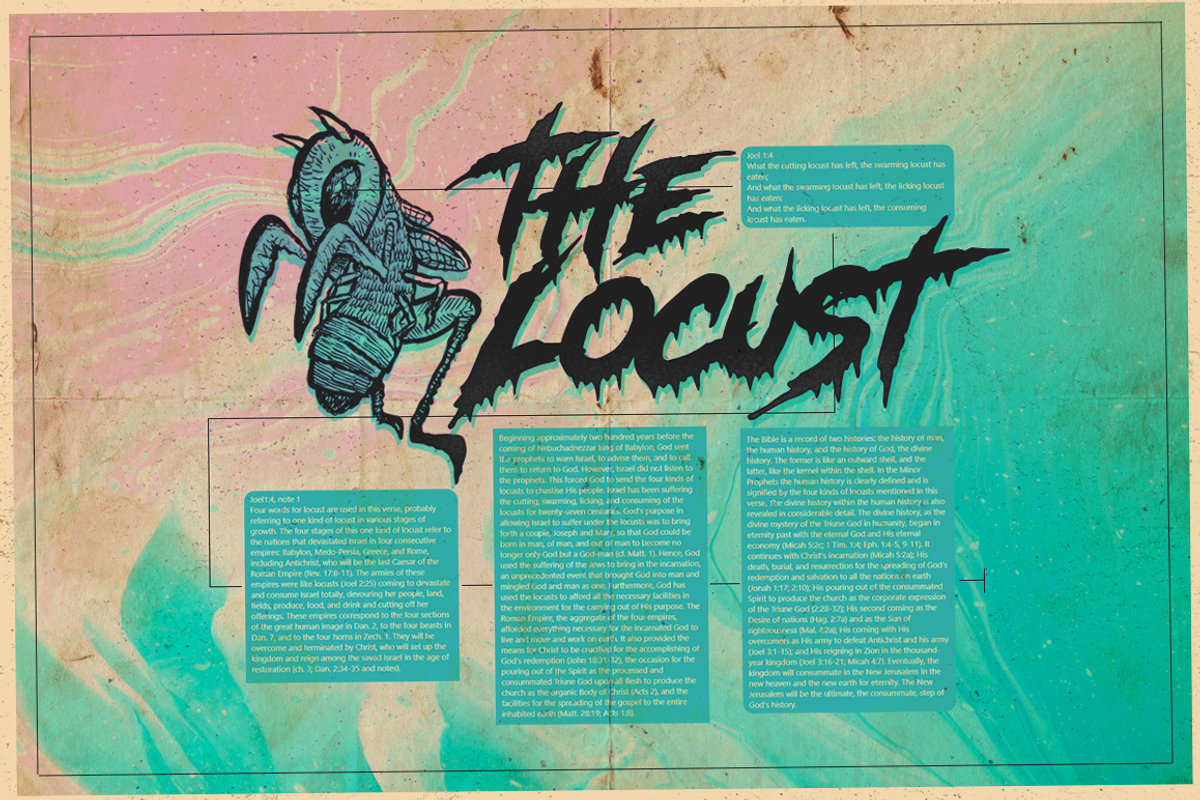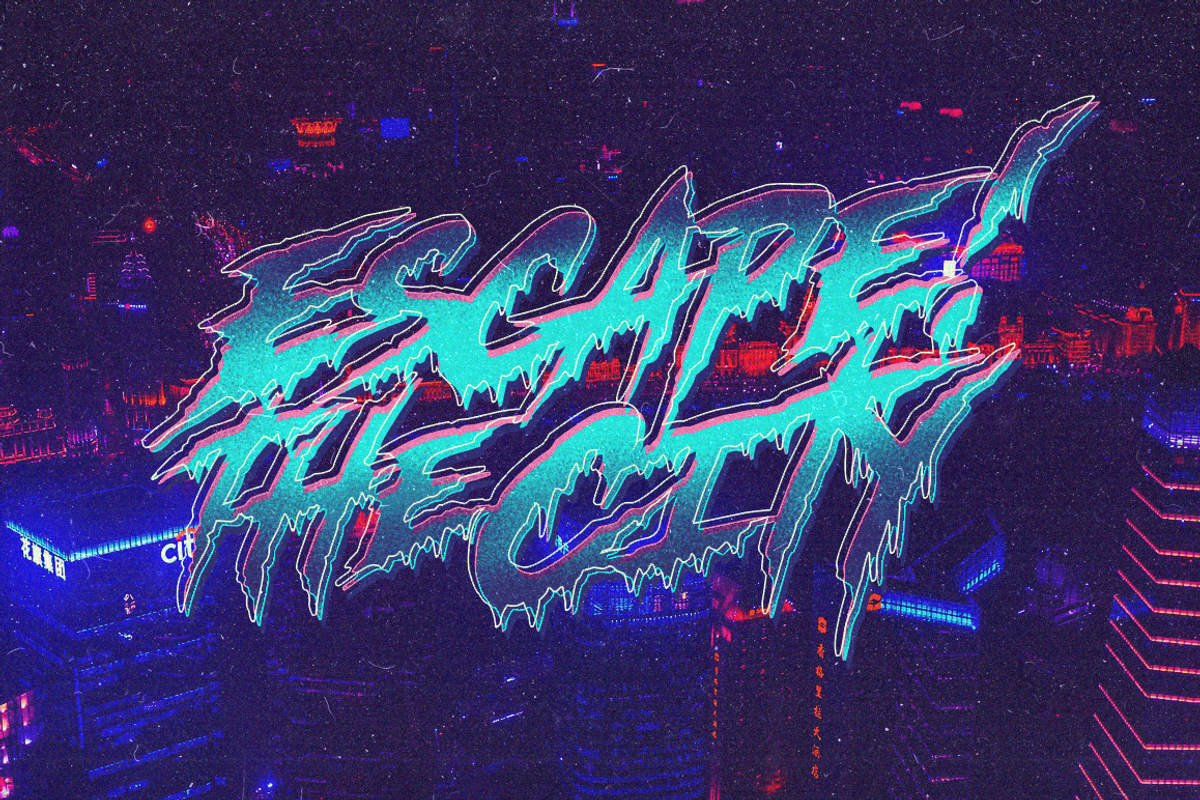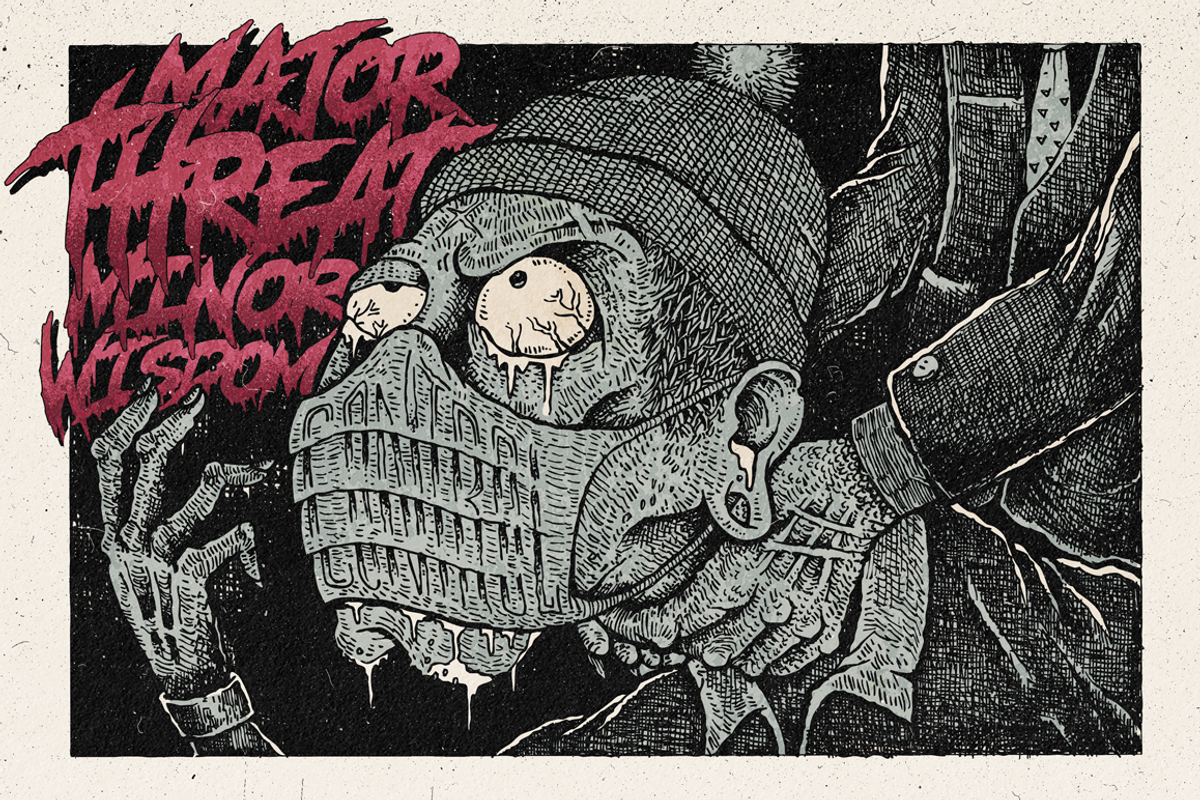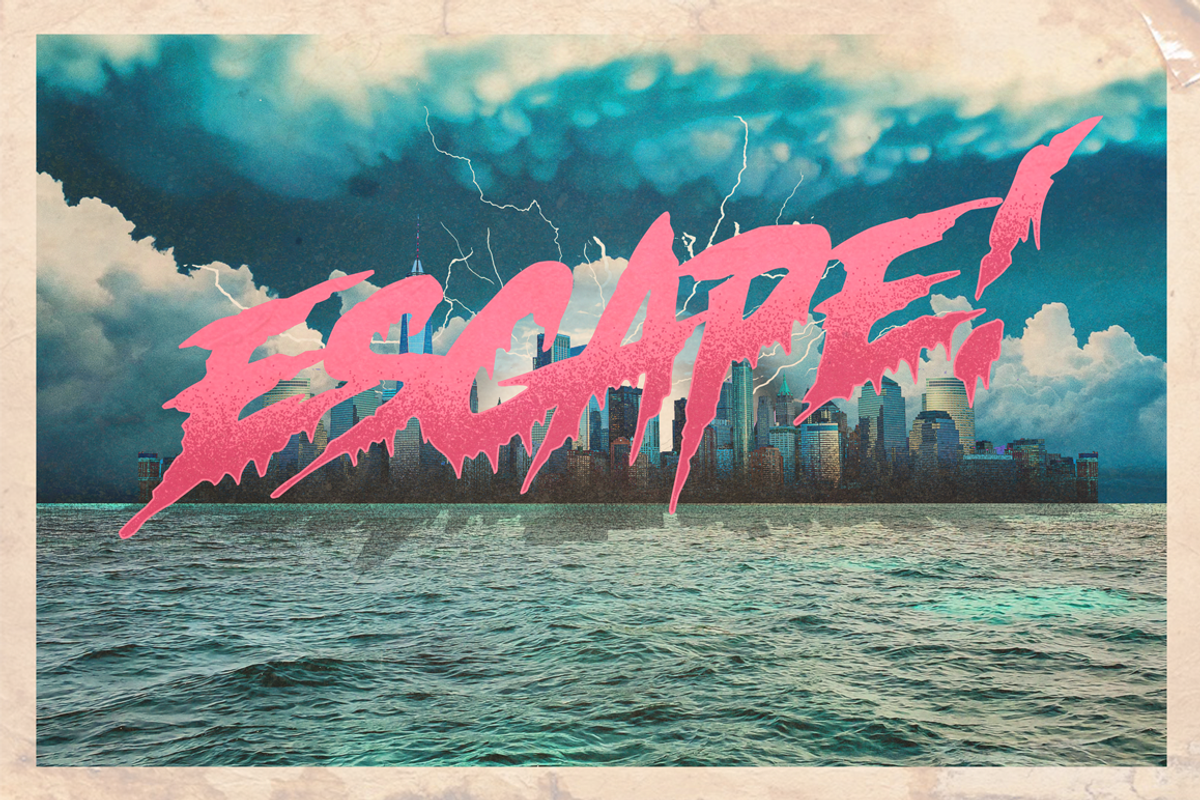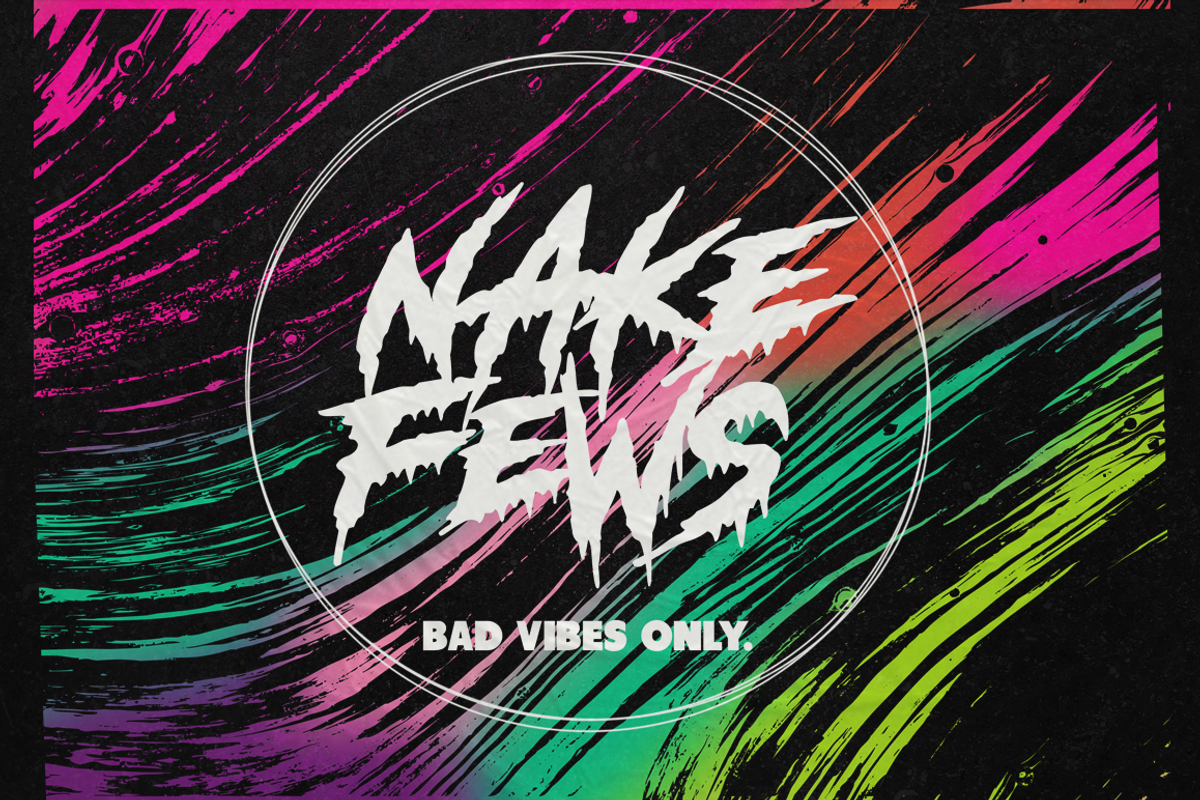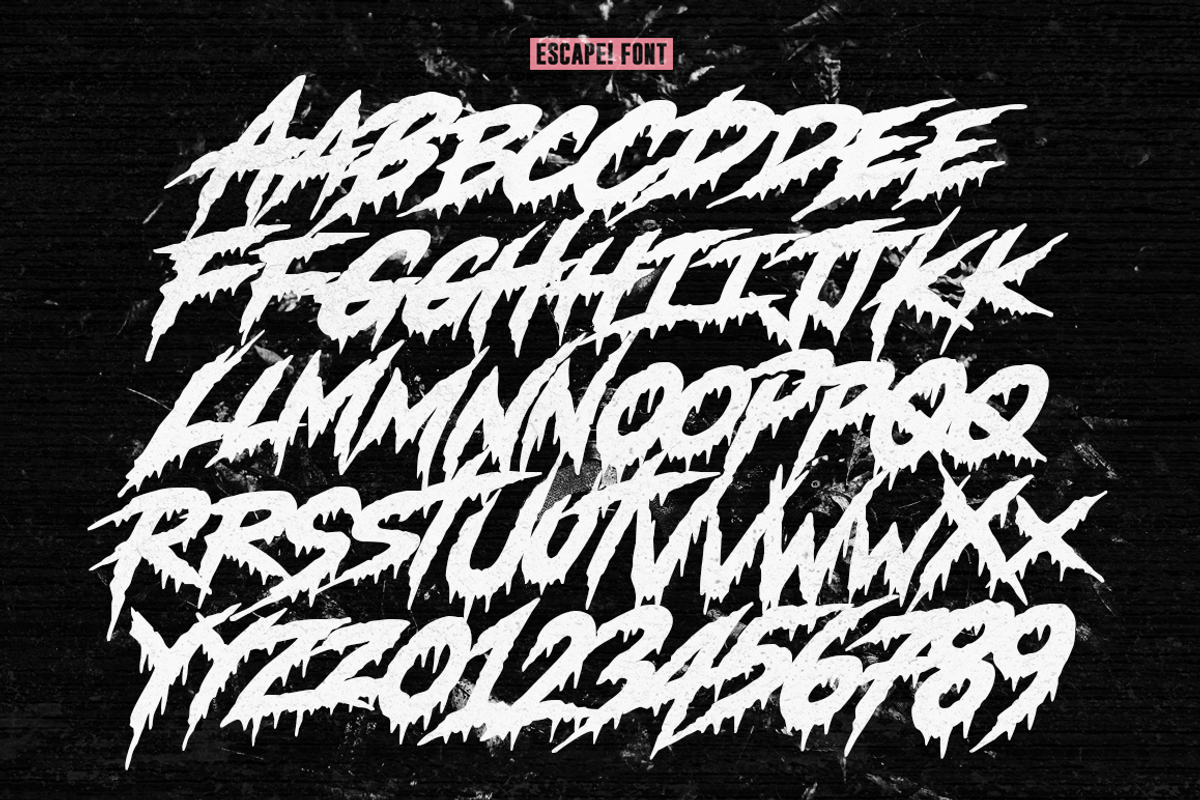
Escape! Font + Free Illustrations
It is when you can't get enough of horror types. Escape! Typeface is here to match those scary sketches on your mind. A font for the never-ending enthusiasm of horror designs, retro and death-metal art. Our fonts are "horror movie" approved so this one will surely a great addition to your collection. Enjoy!